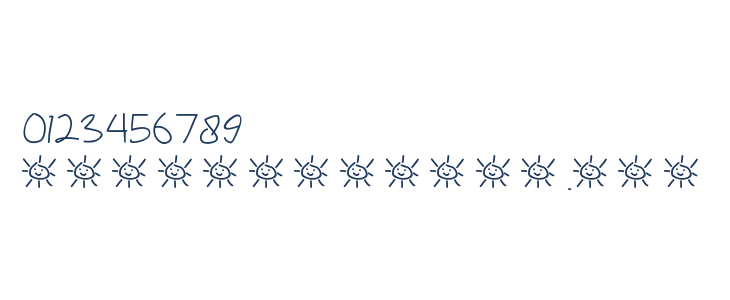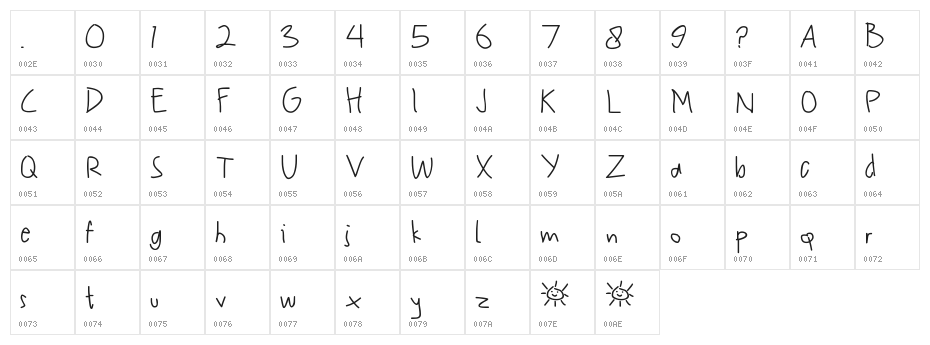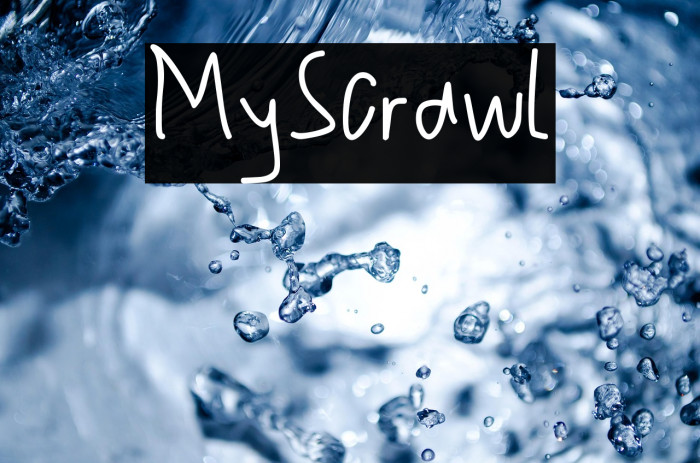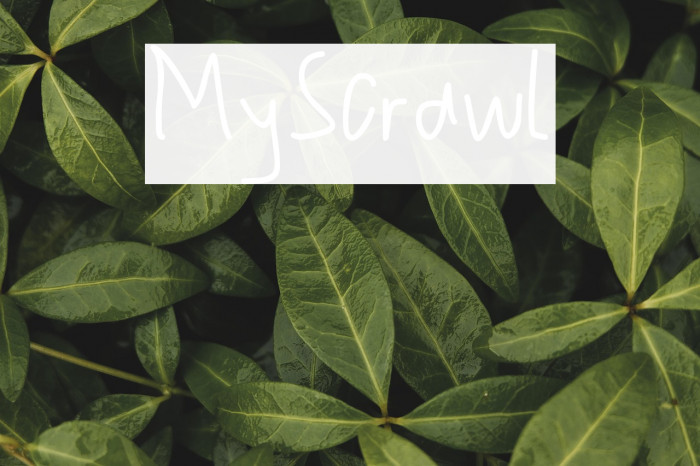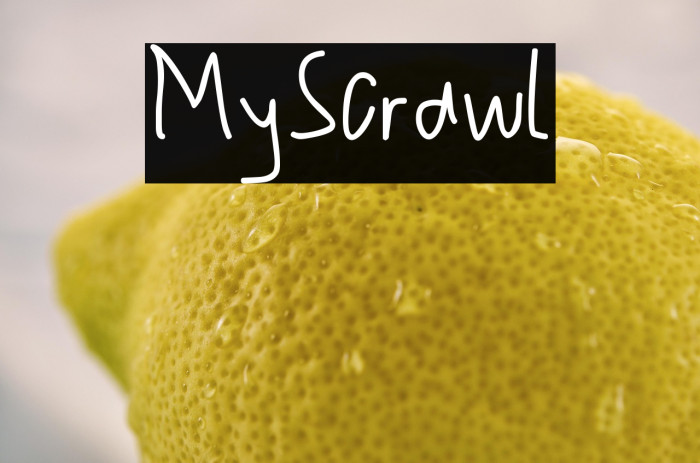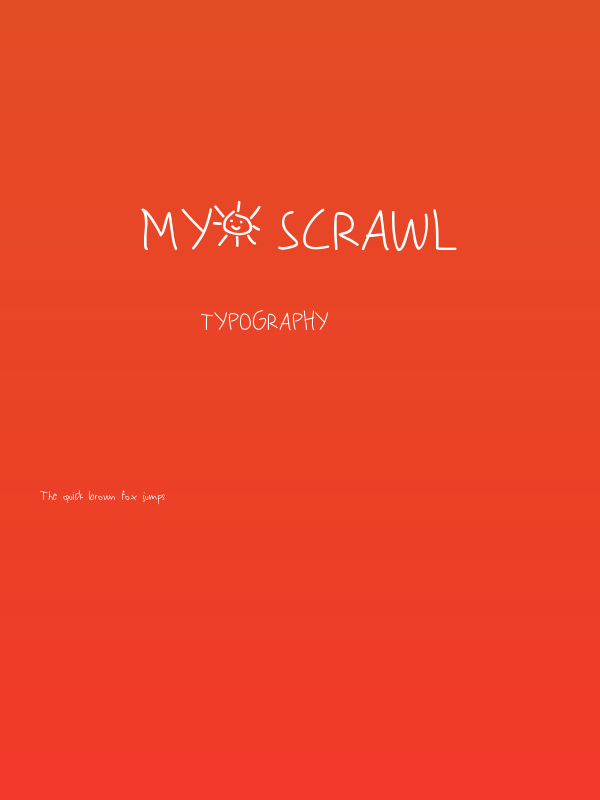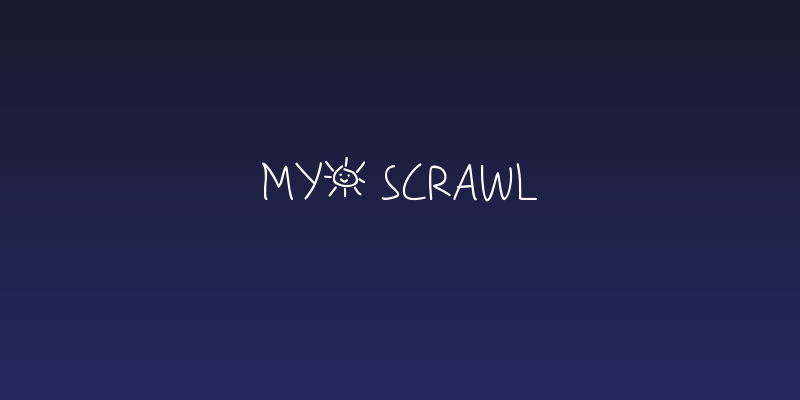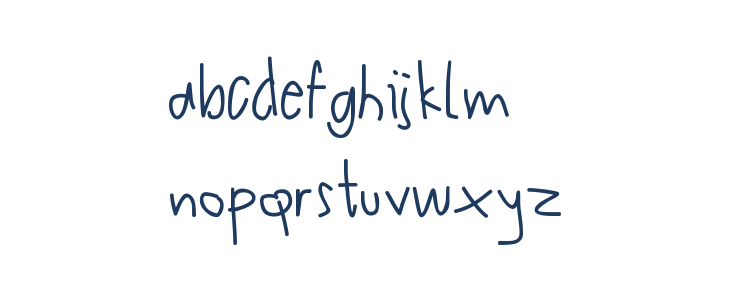
My-Scrawl Font
My-Scrawl Description
This font exhibits a casual, handwritten style with a playful and informal appearance. The characters are slightly irregular, mimicking the natural flow of handwriting. The strokes are consistent in width, giving it a uniform look despite its informal style. The uppercase letters are tall and narrow, while the lowercase letters are more rounded and open. The numbers are clear and easy to read, maintaining the same playful style. This font is ideal for projects that require a personal touch or a relaxed, friendly vibe.
| Overall Style | Casual |
| Use Case | Headlines, Informal text, Personal projects |
| Proposed Projects | Ideal for greeting cards, personal notes, informal invitations, and children's books. |